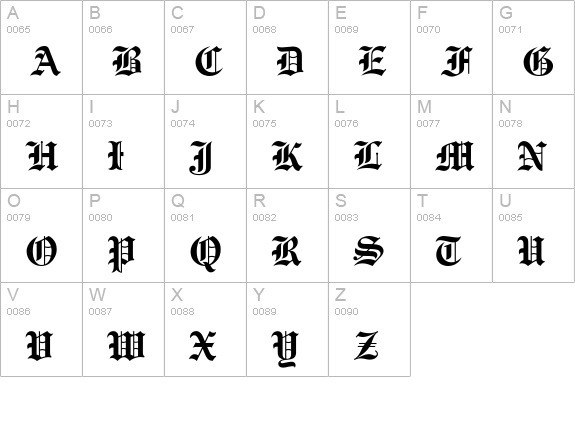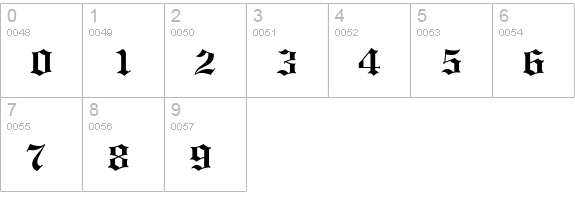
Engravers Old English Bold Font Details
Engravers Old English Bold is a strong, high-contrast variant in the Engravers typeface family \xE2\x80\x94 well suited to headlines, attention-grabbing titles, and strong calls-to-action.
Engravers Old English Bold font is a timeless and elegant typeface that exudes sophistication and class. Its intricate detailing and sharp edges give it a vintage feel, perfect for adding a touch of old-world charm to your designs. This bold and distinctive font is ideal for creating logos, headlines, and invitations that demand attention. The Engravers Old English Bold font is not only visually stunning but also incredibly versatile, making it suitable for a wide range of design projects. Whether you're working on a vintage-inspired branding project or a classic wedding invitation, this font will add a touch of elegance and refinement. Best of all, Engravers Old English Bold font is completely free to download at FontsMarket.com. So, if you're looking to elevate your designs with a touch of timeless sophistication, be sure to add this stunning font to your collection today.